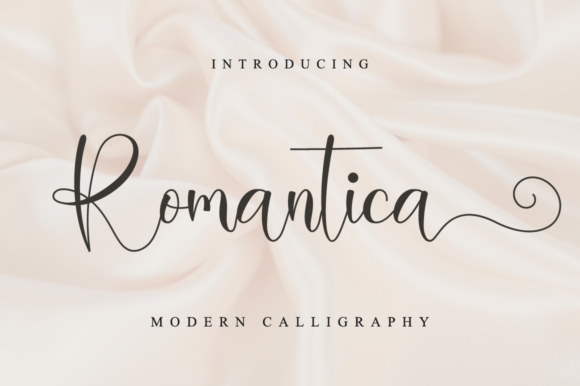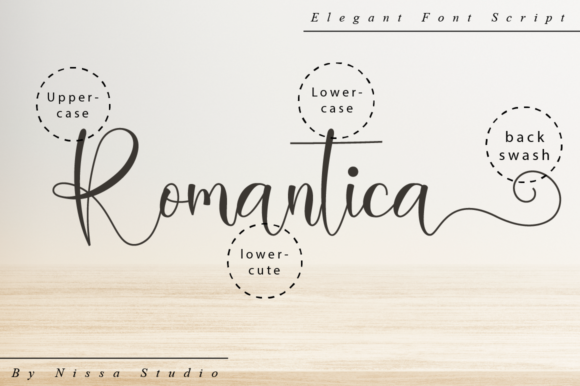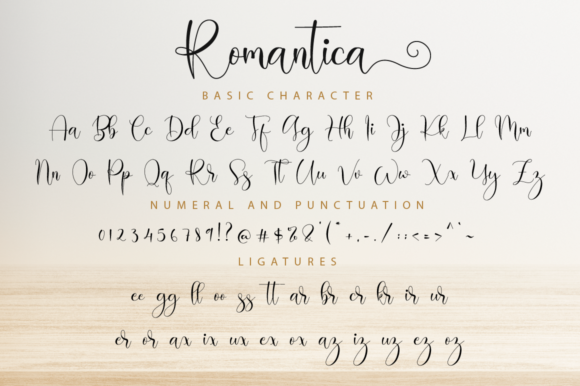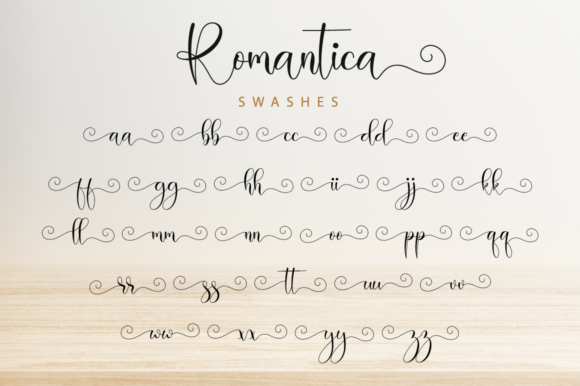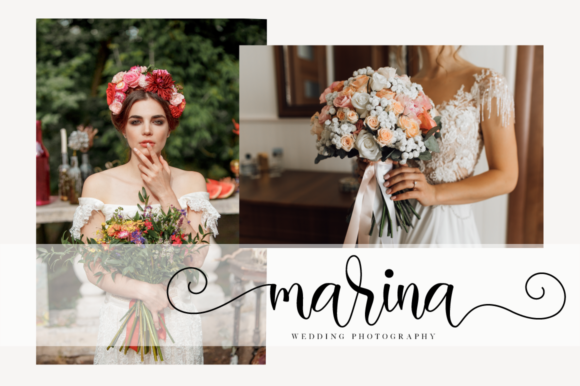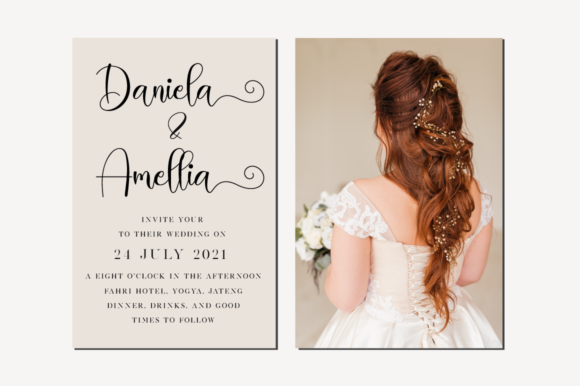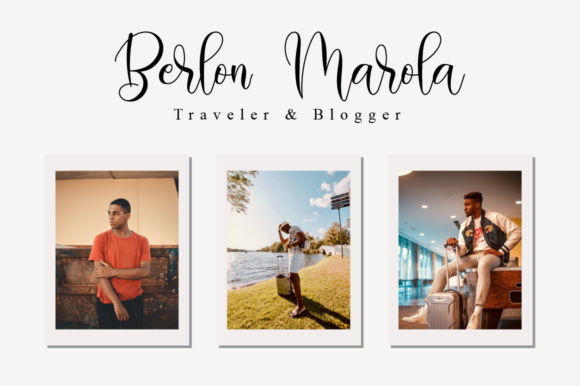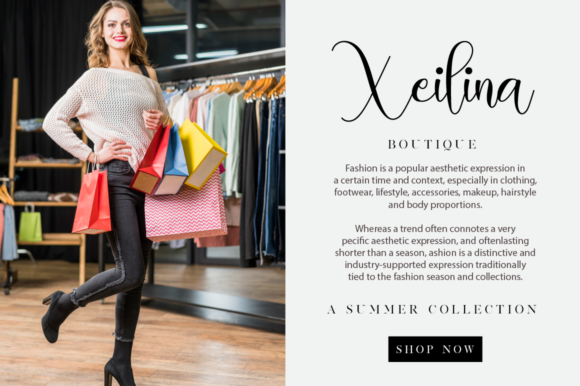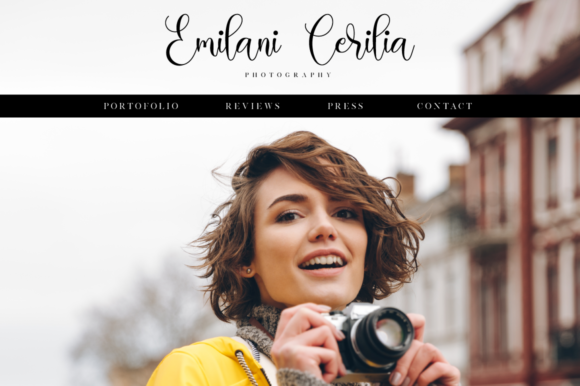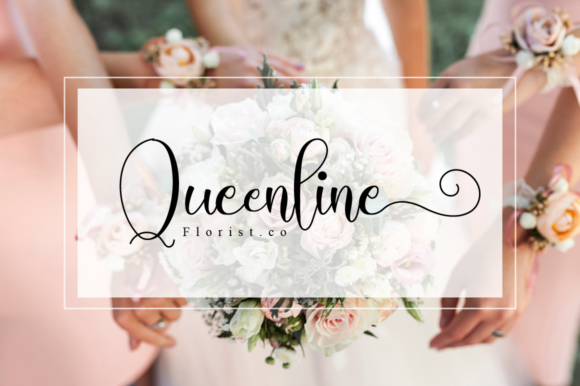
Romantica Font
About Romantica Font
Romantica is an incredibly beautiful and classy handwritten font, described by an elegant touch, perfect for your favorite projects. Fall in love with its incredibly distinct and timeless style and use it to create spectacular designs! This font is PUA encoded which means you can access all of the glyphs and swashes with ease! It features a varying baseline, smooth lines, gorgeous glyphs and stunning alternates.